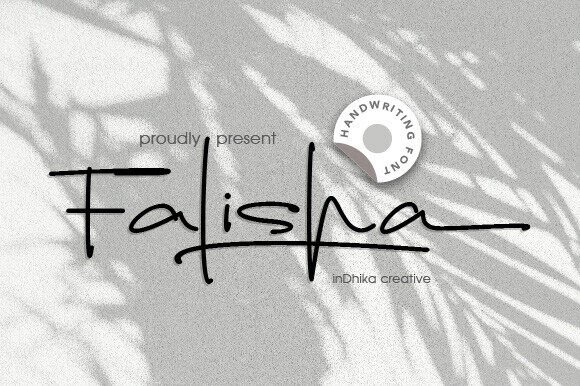
Introducing Falisha Font: The Epitome of Elegance and Sophistication
In the realm of typography, few fonts manage to convey the perfect blend of elegance, sophistication, and charm. Falisha Font is one such remarkable typeface that has been making waves in the design community. This sleek and elegant handwritten font is designed to add a touch of refined beauty to various creative projects, including branding, wedding invitations, fashion designs, and personal endeavors.
What Makes Falisha Font Stand Out?
- Smooth, Flowing Strokes: Falisha Font boasts smooth, flowing strokes that give it a unique and captivating appearance. The fluidity of its lines makes it instantly recognizable and highly sought after for projects that demand a touch of sophistication.
- Handwritten with Precision: As a handwritten font, Falisha exudes a personal touch that is hard to replicate with generic typefaces. Its precision-crafted letters ensure that the font looks polished and refined, making it suitable for both digital and print applications.
- Versatility: One of the key advantages of Falisha Font is its versatility. It can seamlessly adapt to various design contexts, from luxury branding to elegant wedding invitations, and from high-end fashion designs to personal projects.
Ideal Use Cases for Falisha Font
Branding and Logo Design
For businesses aiming to establish a sophisticated and elegant brand identity, Falisha Font is an excellent choice. Its unique appearance can help create memorable logos and brand names that stand out in the market.
Wedding Invitations and Stationery
Weddings are a celebration of love and elegance, making Falisha Font a perfect fit for wedding invitations, save-the-date cards, and other stationery. Its romantic and refined aesthetic sets the tone for a memorable event.
Fashion Designs and Editorials
In the fashion world, aesthetics are everything. Falisha Font can add a touch of glamour and sophistication to fashion designs, editorials, and advertising campaigns, making it a favorite among designers.
Personal Projects and Crafts
For individuals working on personal projects, such as scrapbooking, journaling, or crafting, Falisha Font offers a beautiful way to add a personal and elegant touch. Its friendly yet sophisticated appearance makes it suitable for a wide range of creative endeavors.
Tips for Using Falisha Font Effectively
- Pair with Complementary Fonts: To maximize the impact of Falisha Font, consider pairing it with complementary fonts that enhance its elegance. A sans-serif font can provide a nice contrast and improve readability.
- Adjust Letter Spacing: Adjusting the letter spacing (tracking) can significantly affect the overall appearance of Falisha Font. Experiment with different spacings to achieve the desired effect, whether it’s more compact and dense or airy and relaxed.
- Play with Colors: Falisha Font looks stunning in various colors, but it’s particularly striking in rich, deep tones or metallic colors. Don’t be afraid to experiment with different colors to find the perfect match for your design.
Drawing Inspiration from Falisha Font
Falisha Font’s unique blend of elegance and charm makes it a great source of inspiration for designers. Whether you’re working on a branding project, a wedding invitation, or a personal craft, seeing the possibilities that Falisha offers can spark creativity and guide your design decisions.
Falisha Font is more than just a typeface; it’s a design element that can elevate your projects with its sleek, elegant, and charming appearance. Its versatility, precision-crafted letters, and smooth strokes make it an ideal choice for a wide range of applications. By incorporating Falisha Font into your designs, you can add a touch of refined beauty and sophistication that sets your work apart.